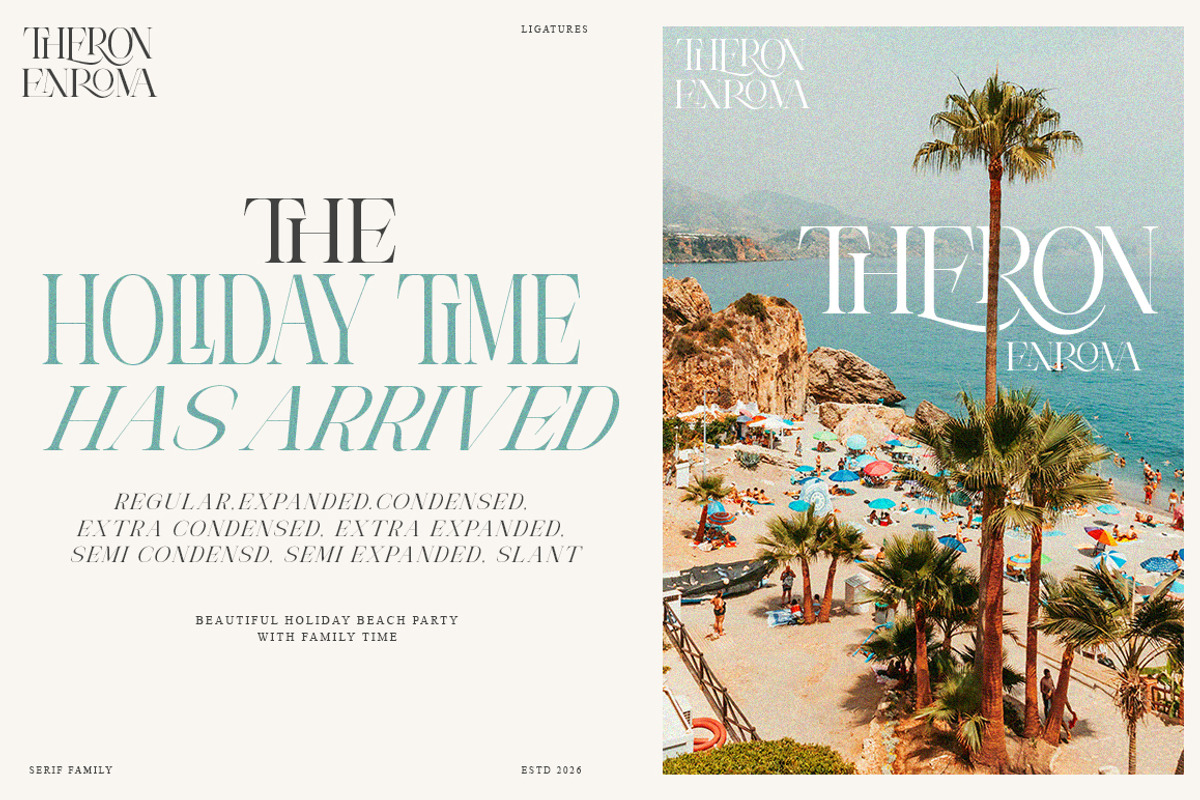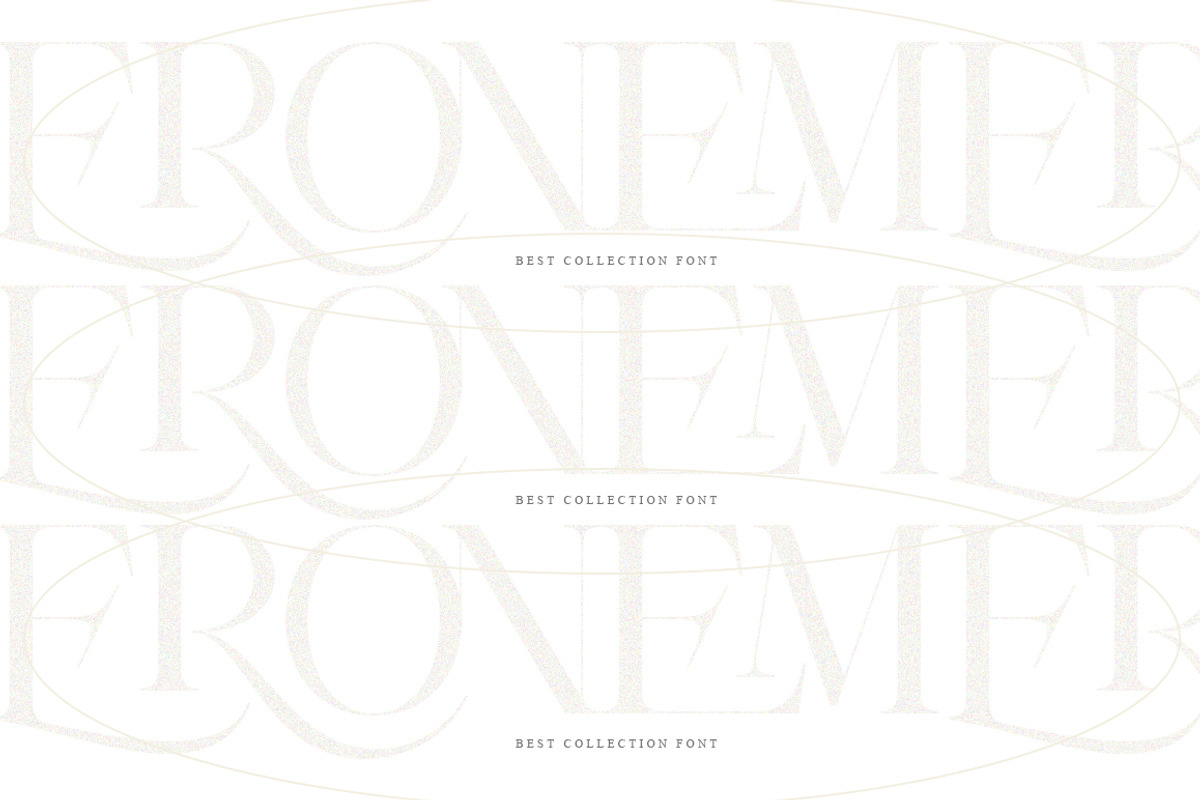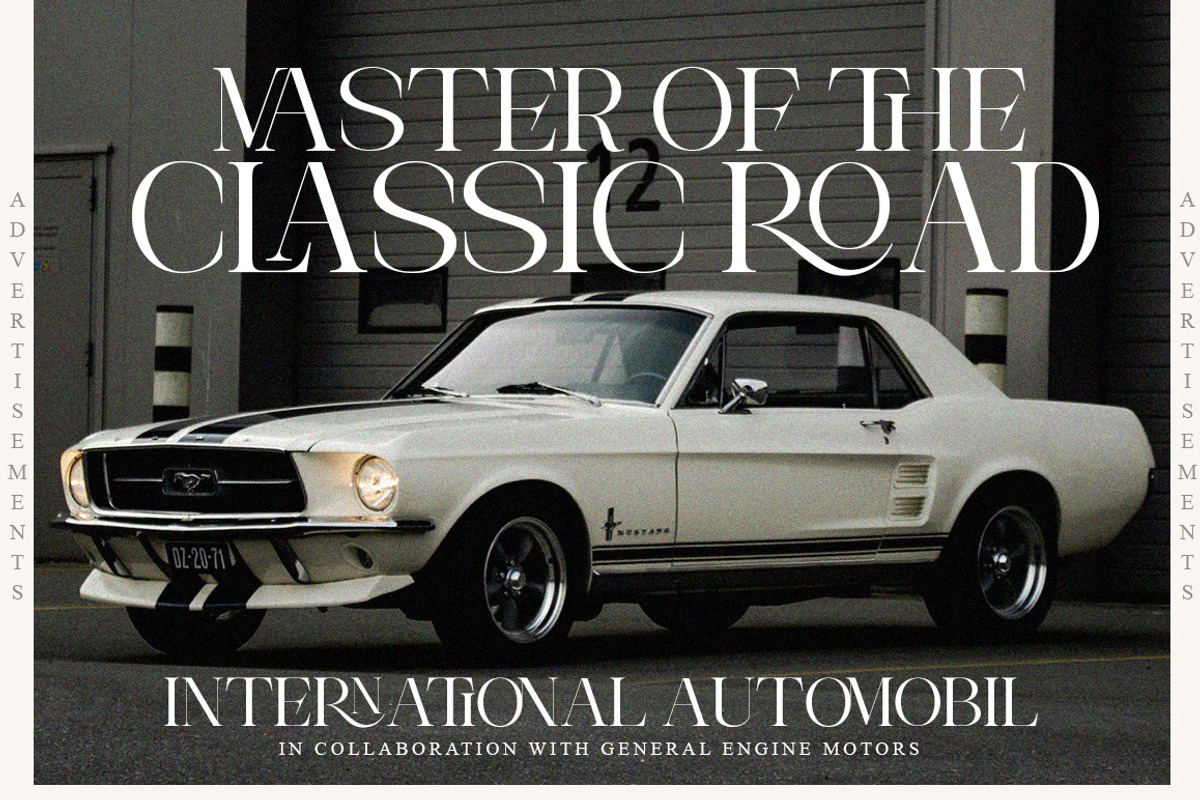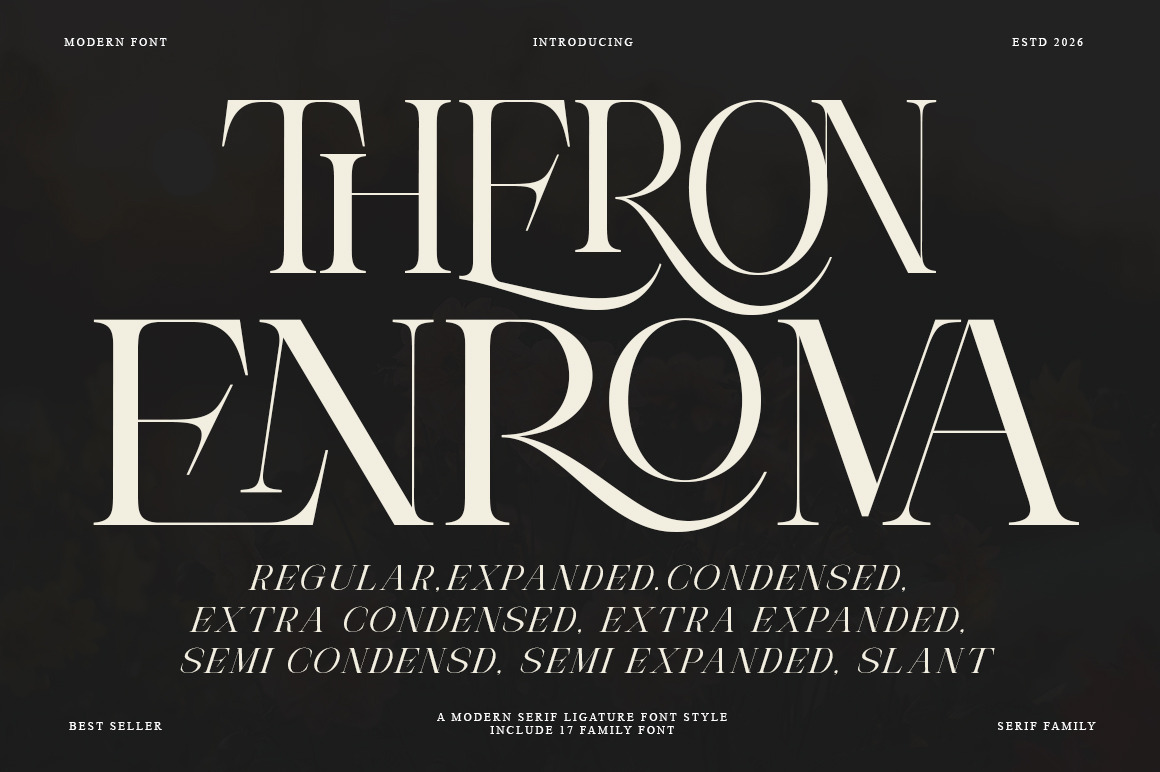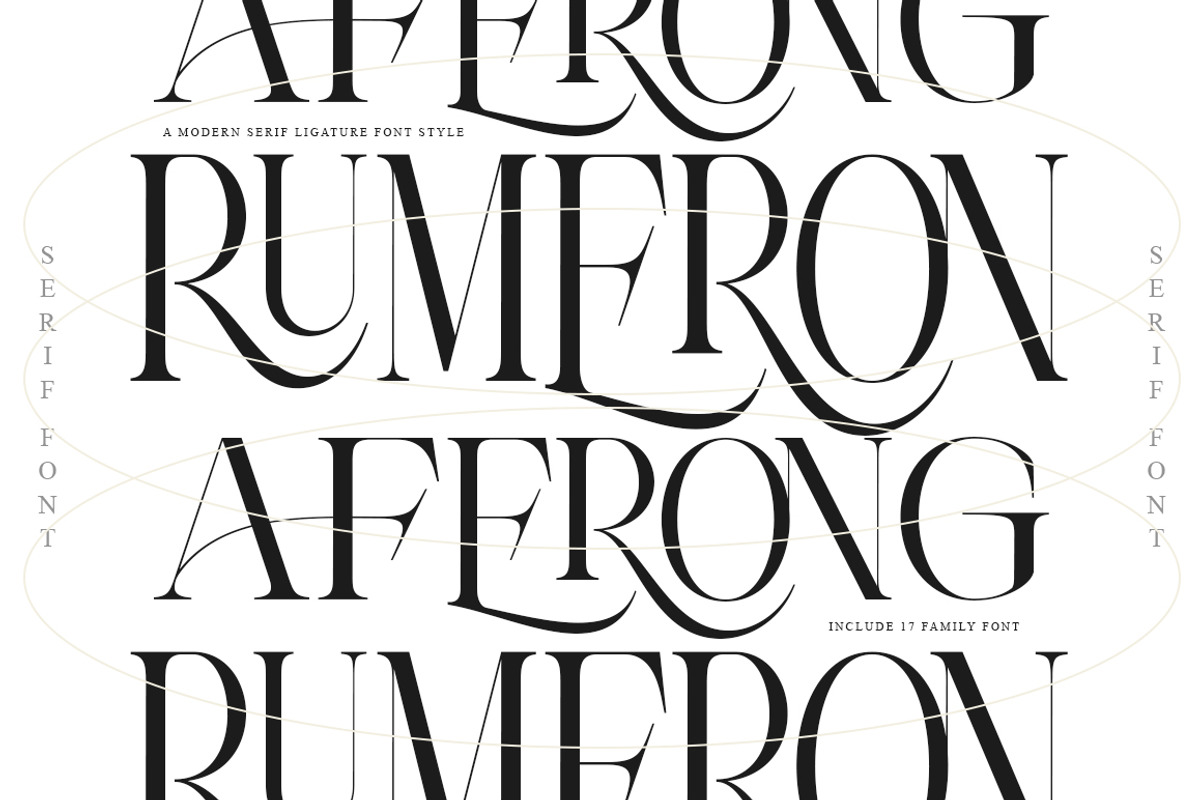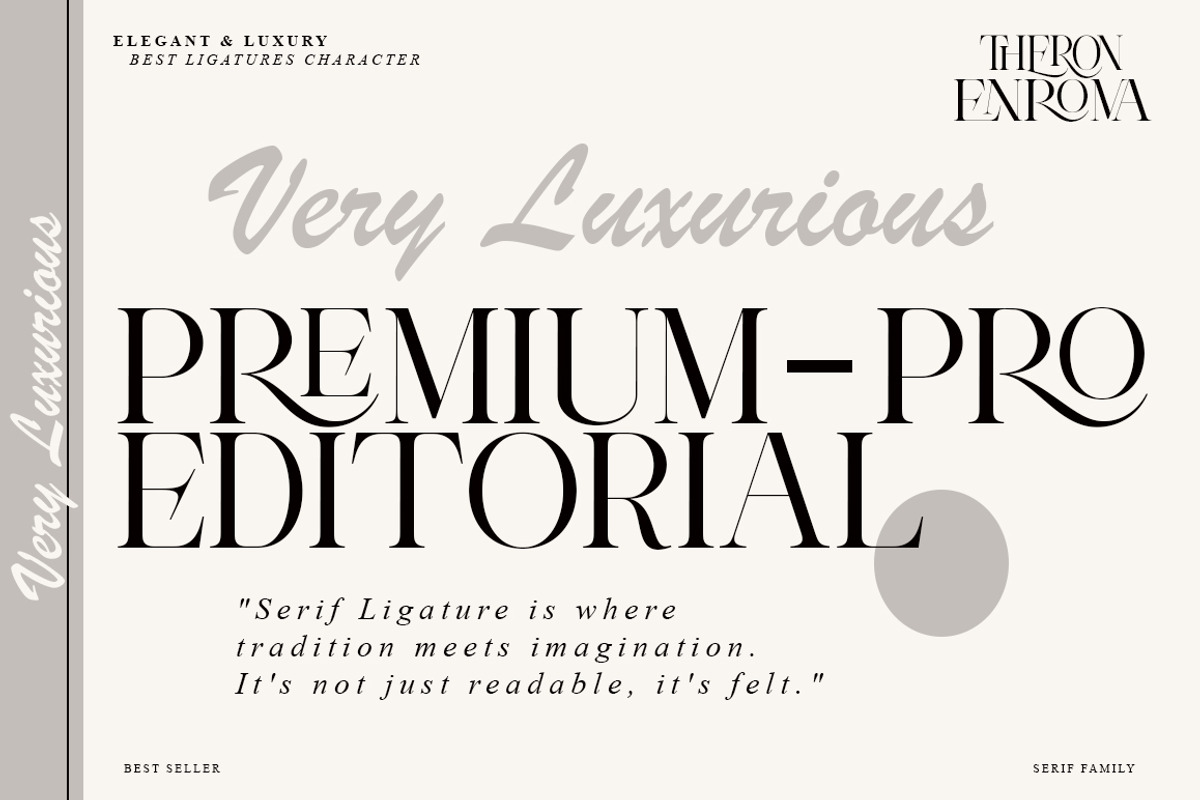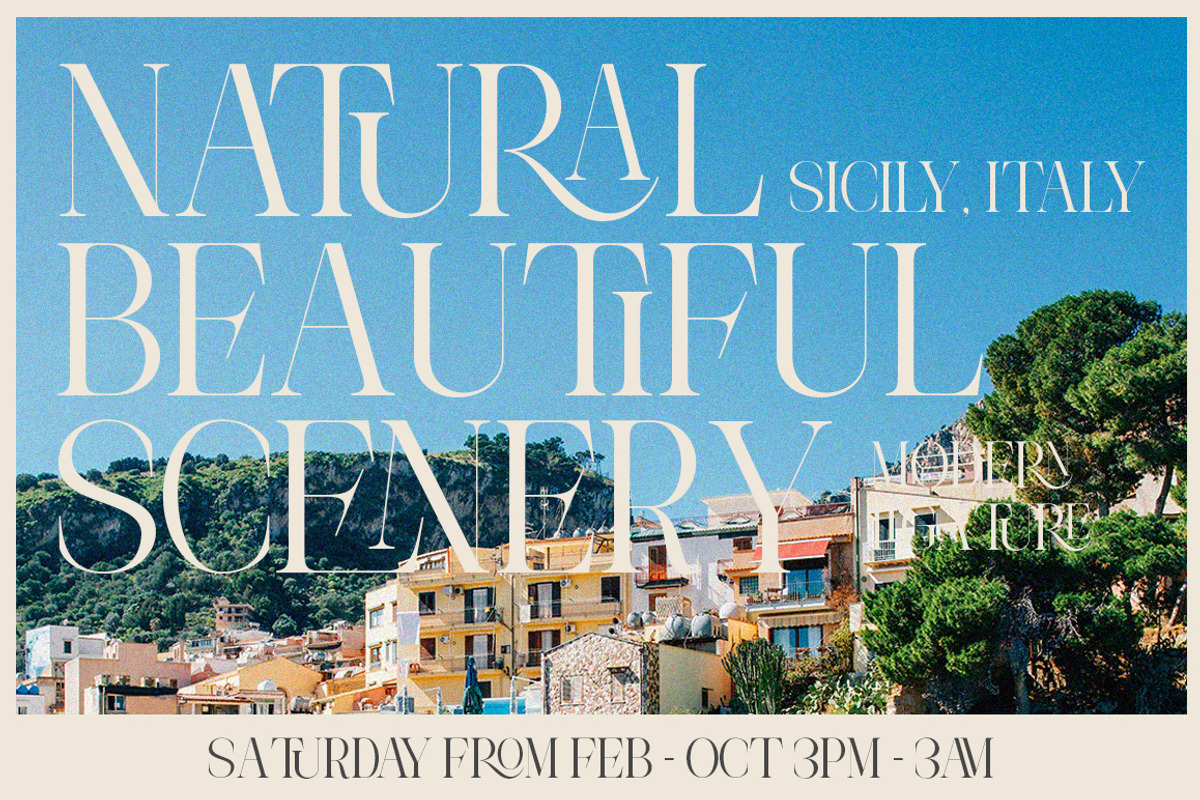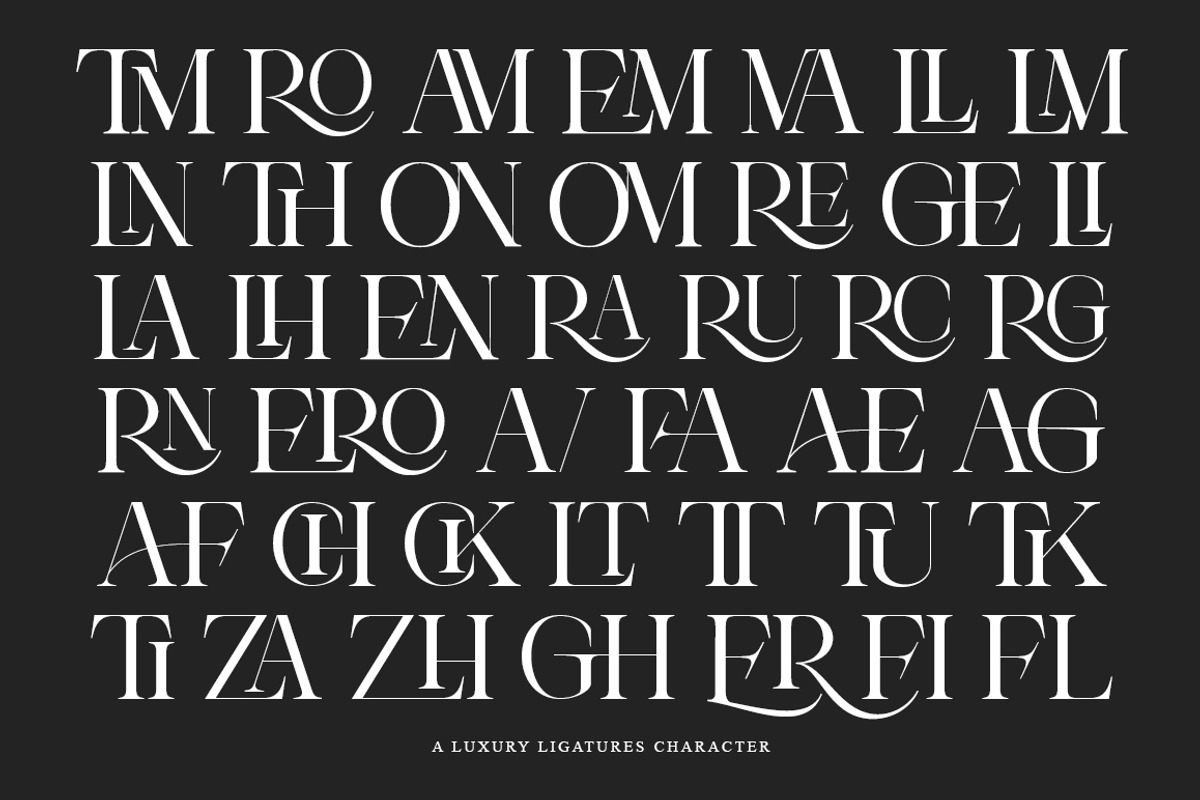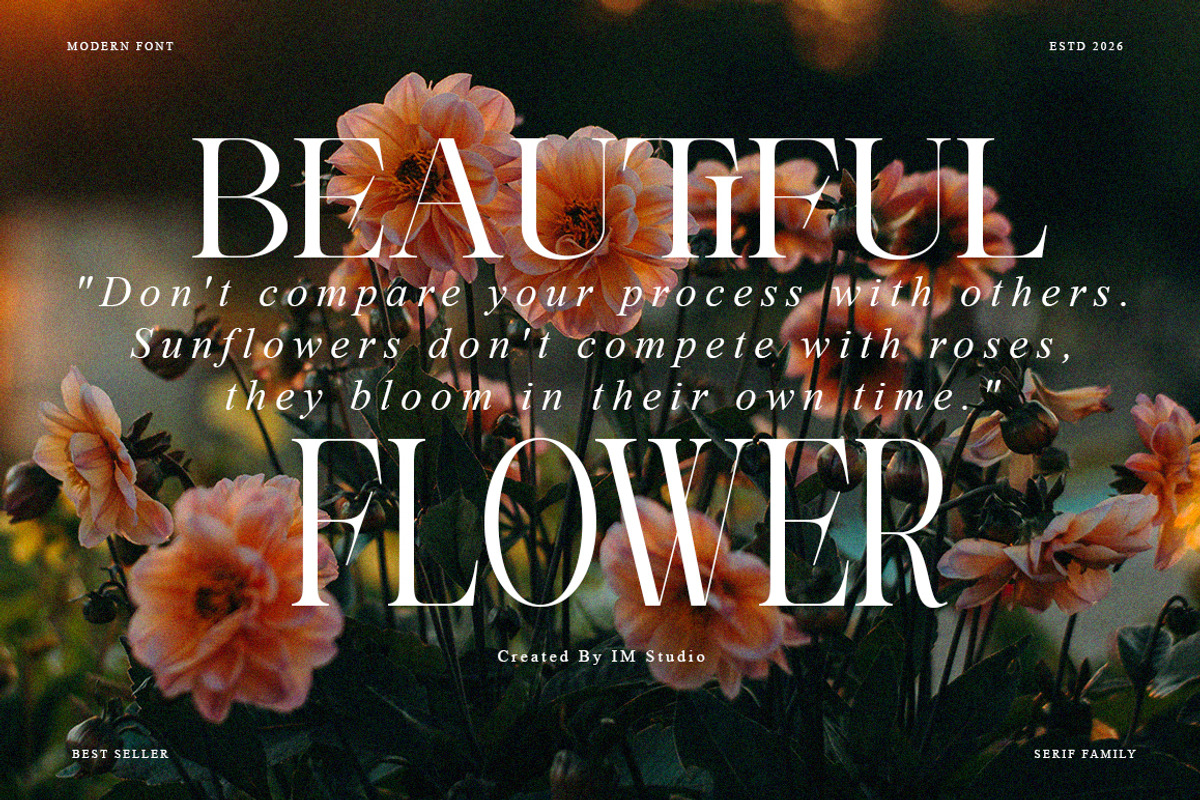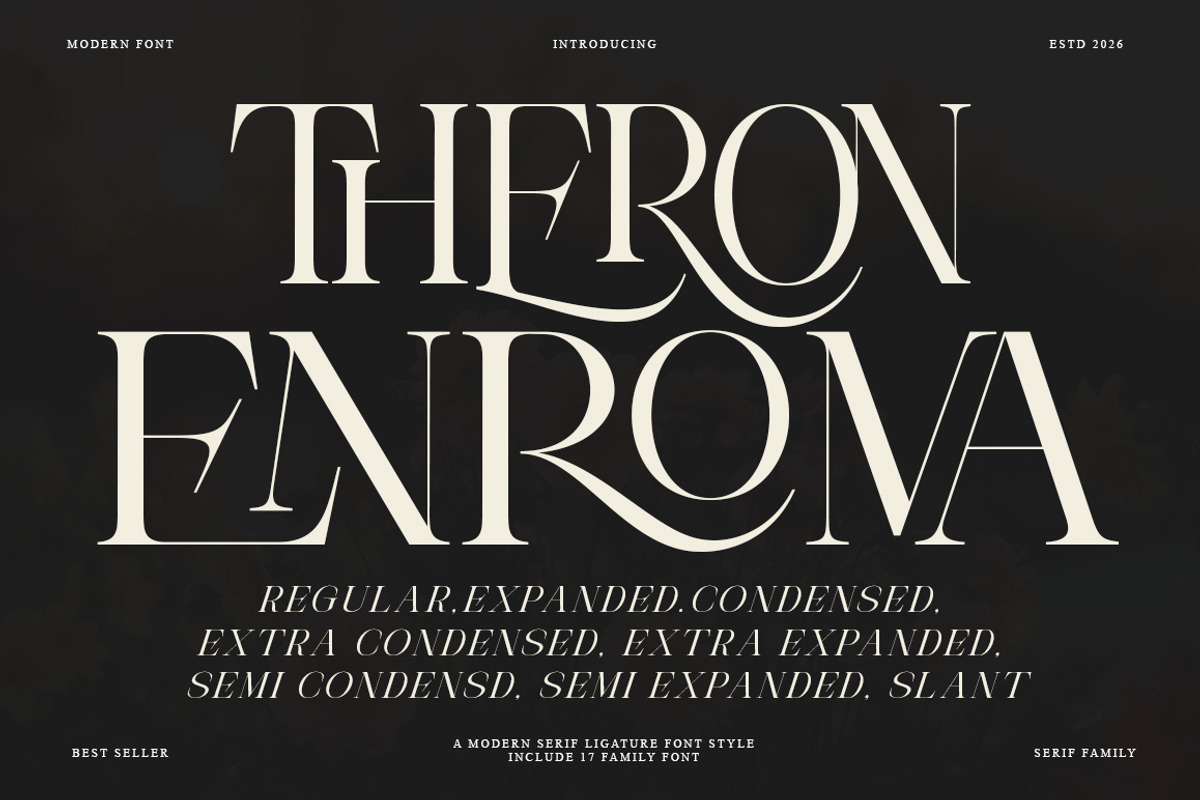
Theron Enroma | 17 Font Style
Theron Enroma | 17 Font Styles – Elegant & Unique Typeface for Branding
Theron Enroma is an elegant font with a unique touch specifically designed for branding and logo design. Inspired by our experience designing visual identities for various companies, this font is designed to meet the need for a classy yet distinctive typographic style.
With Theron Enroma Family, you can create an elegant, professional, and memorable logo. This font is also perfect for a variety of other creative design needs.